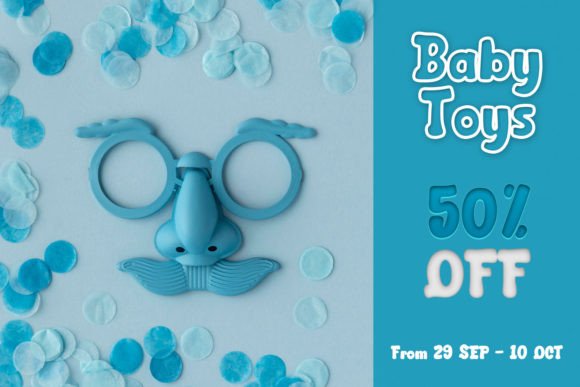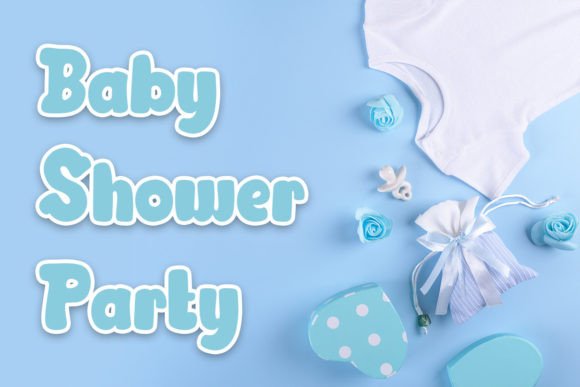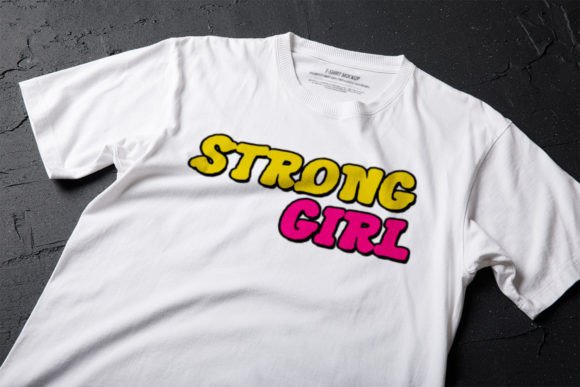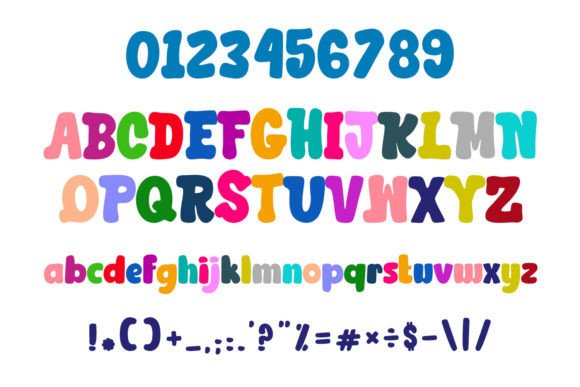
Discover the Joy of Baby Strong Font
You know that moment when a spark of creativity hits you, and you just can’t wait to bring your idea to life? It’s a rush of excitement and inspiration that can lead to some truly amazing designs. For many of us, it’s the perfect opportunity to experiment with new fonts and see how they can elevate our creations.
Enter Baby Strong Font, a charming display font that’s guaranteed to add a playful touch to your designs. With its adorable style and quirky flair, this font is the perfect addition to any project that needs a little extra joy. Whether you’re designing a birthday invitation, a children’s book, or a fun social media graphic, Baby Strong Font is sure to make it stand out.
For designers, Baby Strong Font is a valuable asset that can help take your designs to the next level. Its unique style and versatility make it a great choice for a wide range of creative projects, from branding and advertising to digital art and more.
Baby Strong Font Key Features
- Unique Characteristics: Designed with a playful, modern aesthetic, featuring rounded edges and soft curves
Baby Strong Font Review
Overall, I’d say the Baby Strong Font is a decent addition to any design library. Here are some of its strengths:
- ✨ Unique and playful style that can add a touch of whimsy to your designs
- ✨ Wide range of languages supported, making it a versatile option for international projects
- ⚠️ Not suitable for formal or professional designs, as it may come across as too childish
- ⚠️ Limited customization options, which may limit its use in complex design projects
- ⚠️ May not render well in smaller font sizes or on low-resolution displays
Overall, I’d recommend the Baby Strong Font for projects where you want to add a bit of fun and personality. Just be aware of its limitations and use it judiciously. With some careful planning and design, it can be a great addition to your toolkit.
Tip: Use the Baby Strong Font for titles and headings to create a bold and playful look.
Tip: Use the Baby Strong Font for bold and eye-catching text overlays in your designs.
Tip: Use the Baby Strong Font for headings and titles to create a bold and modern look.
The Baby Strong Font is perfect for:
- Designing children’s products and marketing materials.
- Creating bold and playful titles and headings.
- Adding a fun and energetic touch to your designs.
Alternatives to Baby Strong Font for Designers
Alice
Alice is a serif font known for its elegant and sophisticated look. It’s ideal for formal documents, luxury branding, and high-end publications. Alice has a more refined and classic feel compared to Baby Strong Font, which is often associated with a more playful and modern aesthetic.
Lobster is a script font that adds a touch of whimsy and romance to designs. It’s suitable for creative projects, such as invitations, posters, and social media graphics. Lobster has a more casual and handwritten feel compared to Baby Strong Font, which can be more bold and attention-grabbing.
Playfair Display is a luxurious serif font that exudes elegance and sophistication. It’s perfect for high-end branding, weddings, and special events. Playfair Display has a more refined and classic feel compared to Baby Strong Font, which can be more playful and attention-grabbing.
Great Vibes is a script font that adds a touch of elegance and sophistication to designs. It’s suitable for creative projects, such as invitations, posters, and social media graphics. Great Vibes has a more refined and classic feel compared to Baby Strong Font, which can be more bold and playful.
Creative Projects Using Baby Strong Font
Project 1: Baby’s First Year Timeline
Create a heartwarming keepsake for new parents by designing a timeline of their baby’s first year. Use Baby Strong Font to highlight important milestones and achievements.